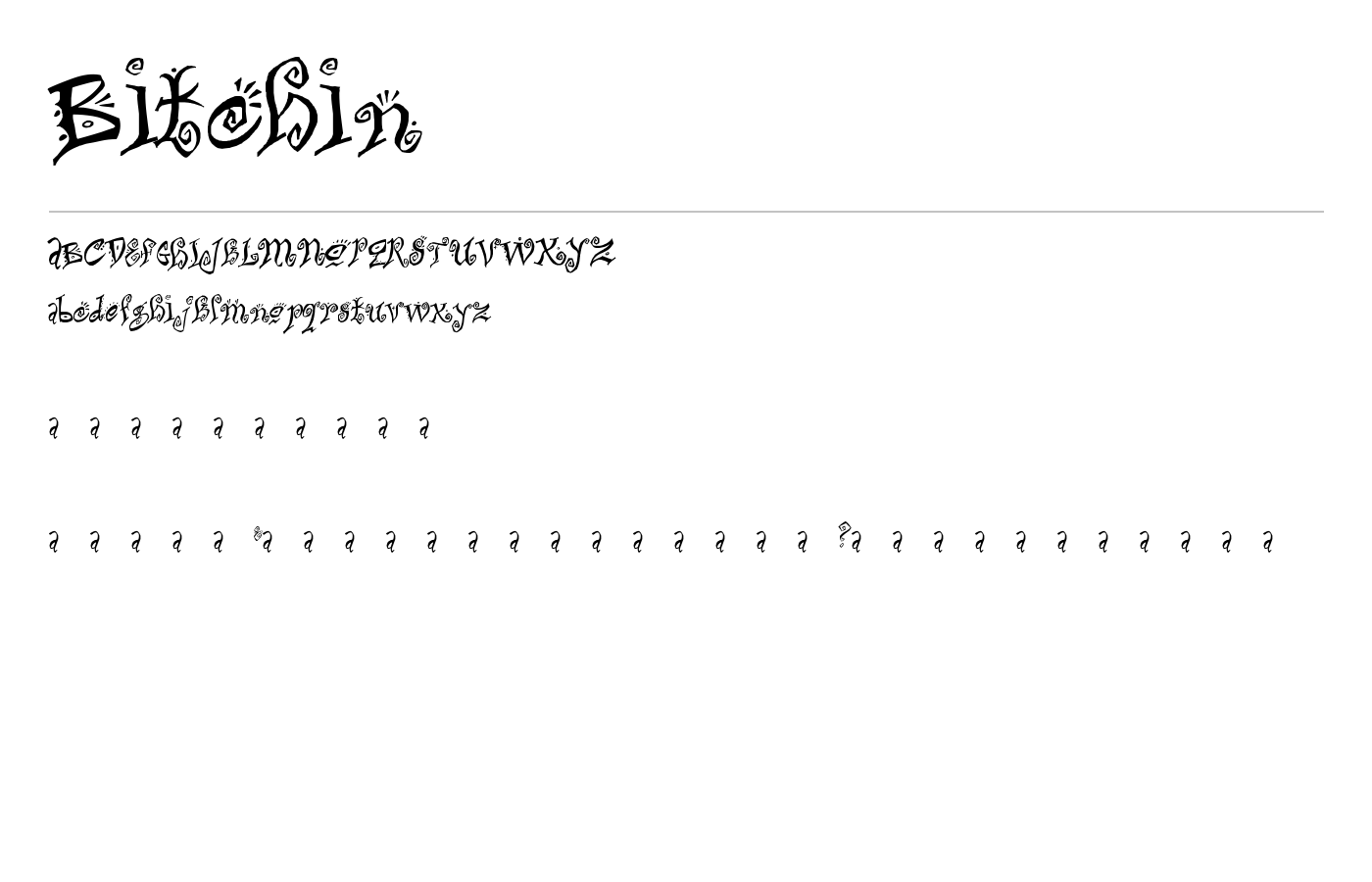
Bitchin Font is a quirky, hand-drawn serif typeface with playful swirls and decorative accents that give it a whimsical and artistic feel. Its irregular shapes and unique letterforms make it perfect for creative projects that want to stand out with personality, such as posters, logos, and packaging. This font works best in display sizes where its intricate details can shine and bring a fun, unconventional charm to any design.
Bitchin Font
About Bitchin Font